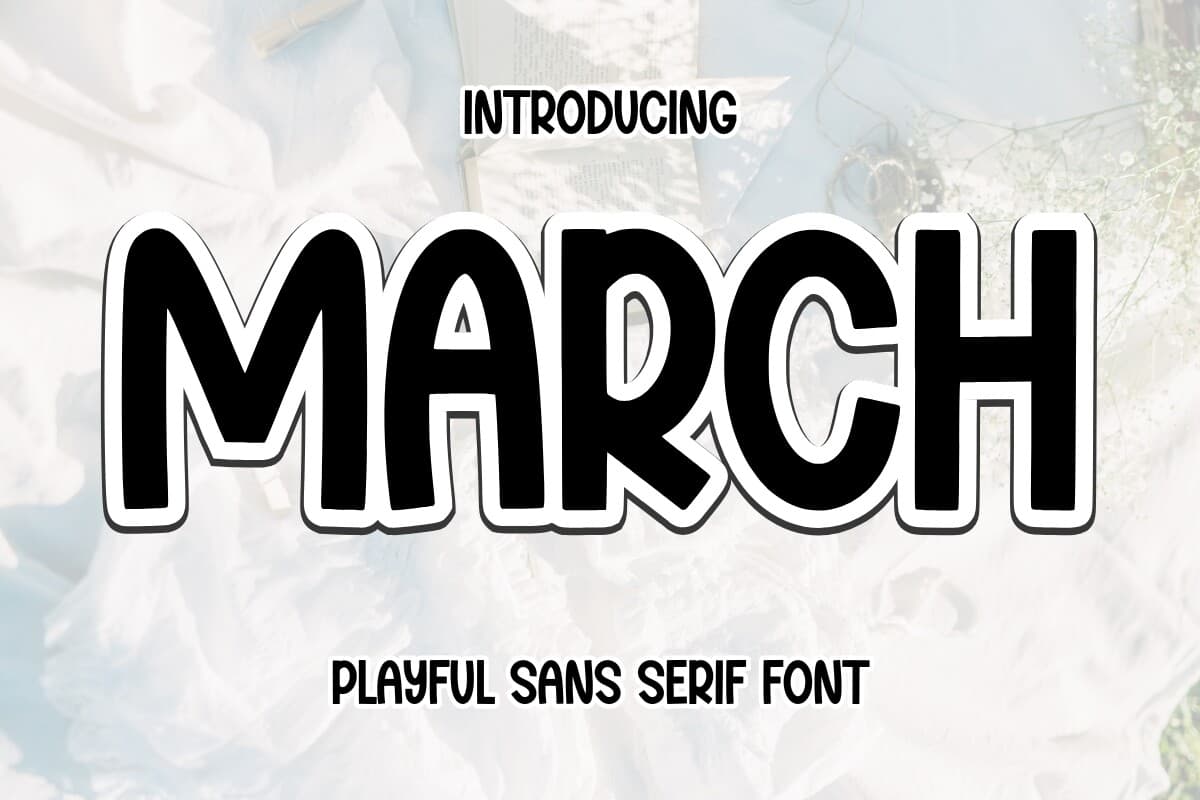
March Font
March Font: A Playful Addition to Your Sans Serif Collection
Are you on the lookout for a refreshing and playful font to elevate your design projects? Look no further than March, a distinctive sans-serif font that brings a delightful twist to any cre...